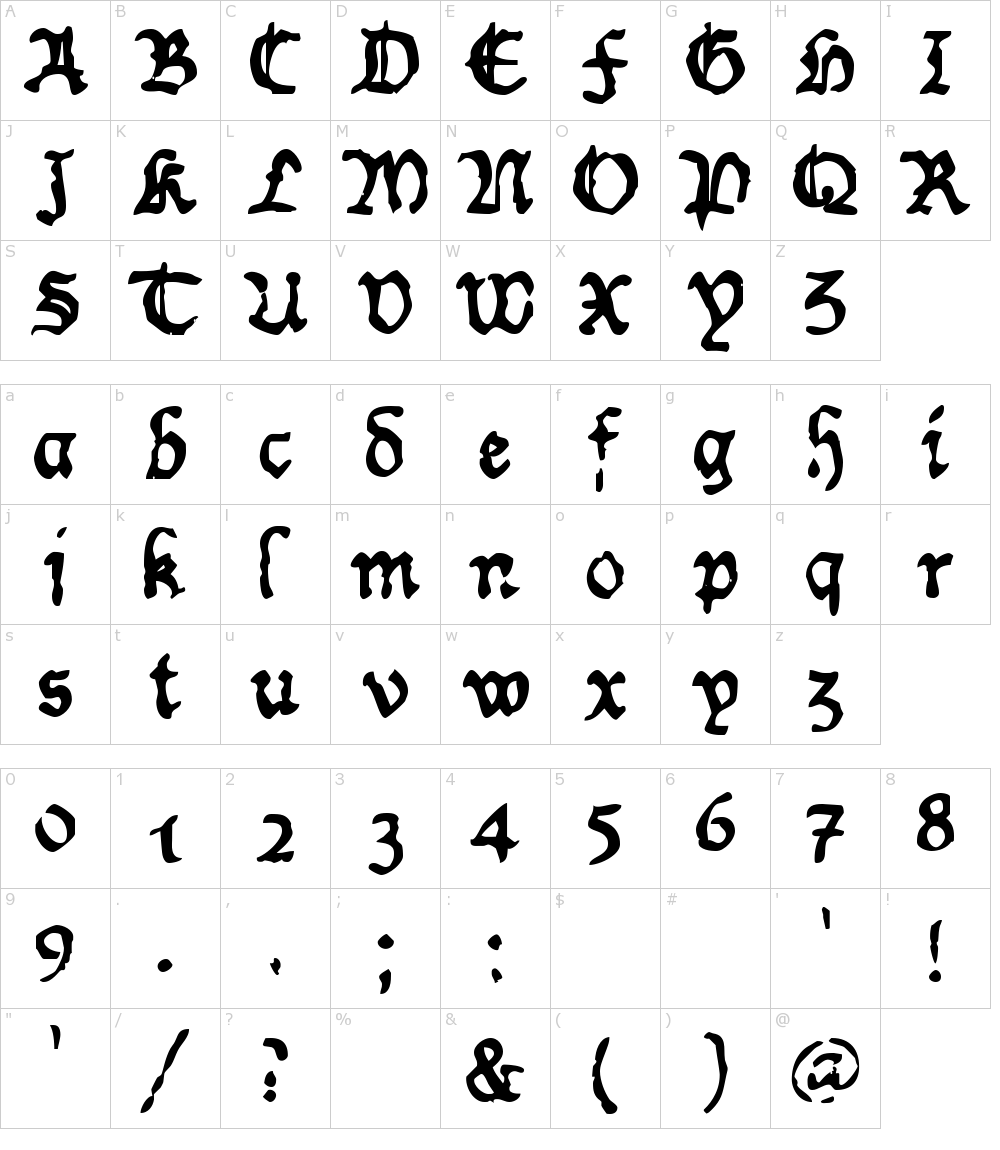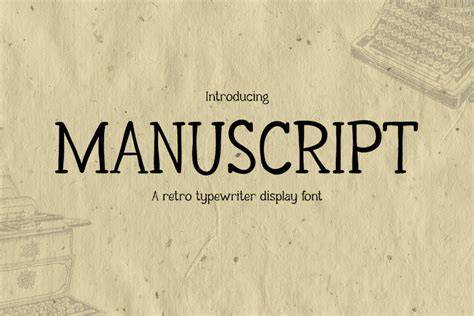
What Are Manuscript Fonts?
Manuscript fonts are typefaces that have been specifically designed for use in the production of manuscripts. These fonts are used for the production of manuscripts such as books, magazines, newspapers, and other documents. Manuscript fonts are typically designed to have a more traditional, classic look than other typefaces. They are also designed to be more legible and easier to read, making them ideal for use in long-form text. Manuscript fonts have been used for centuries, and there are a number of different kinds available today.
Types of Manuscript Fonts
Manuscript fonts come in a variety of different types. Some of the most common types of manuscript fonts include serif fonts, sans serif fonts, and script fonts. Serif fonts are the most traditional type of manuscript font, and they typically feature a bold, blocky look with square edges. Sans serif fonts are less traditional and more modern-looking, with a more fluid, rounded look. Script fonts are the most decorative type of manuscript font, and they feature a more cursive look.
Uses for Manuscript Fonts
Manuscript fonts are used for a variety of different purposes. They are often used in book design, magazine layout, newspaper layout, and other types of long-form text. They are also often used in websites and digital documents. Manuscript fonts are also used in advertising and marketing materials, as well as in the design of logos and other branding materials.
Choosing the Right Manuscript Font
Choosing the right manuscript font for your project can be a difficult task. It is important to consider the purpose of the document, as well as the audience that you are trying to reach. For instance, if you are designing a book or magazine, you should choose a font that is legible and easy to read. If you are designing a website, you should choose a font that is modern and stylish. Additionally, you should consider the context in which the document will be used, and choose a font that is appropriate for that context.
Manuscript fonts are an important part of the design process. They are often used to create documents that are legible, easy to read, and aesthetically pleasing. Choosing the right manuscript font can be tricky, but with some careful consideration and research, you can find the perfect font for your project.